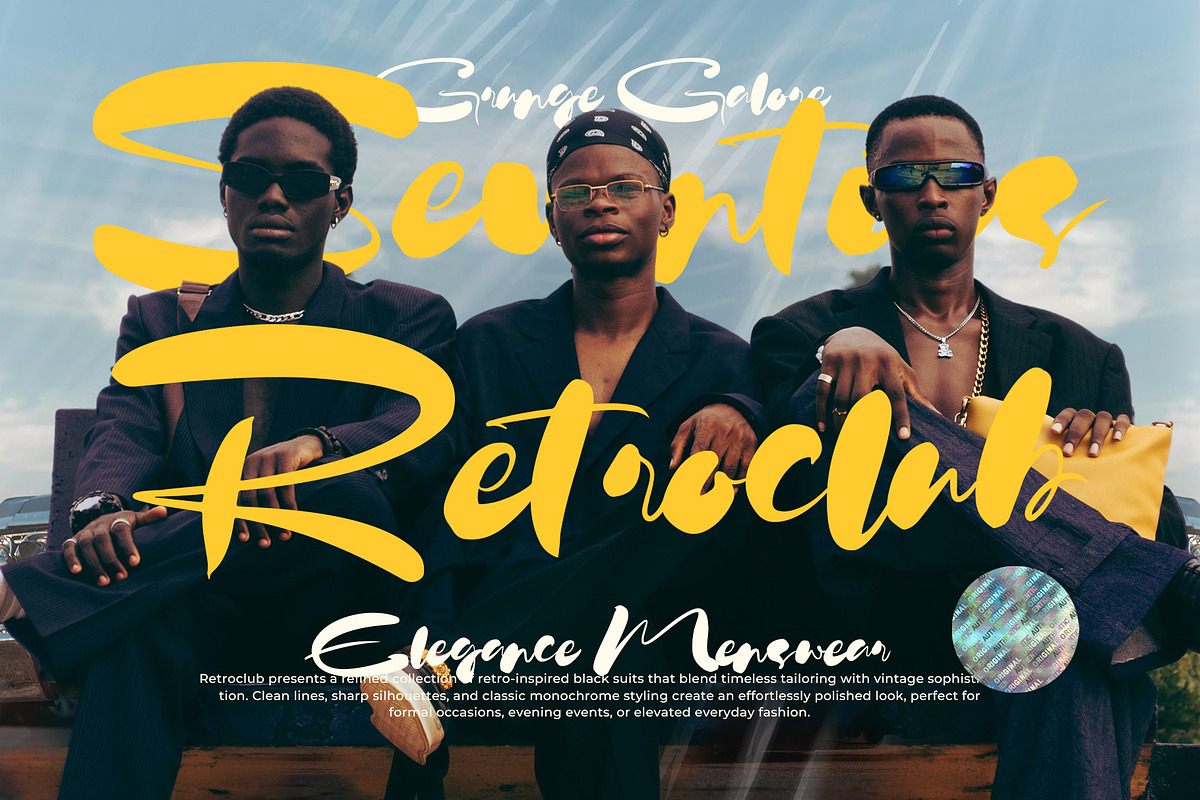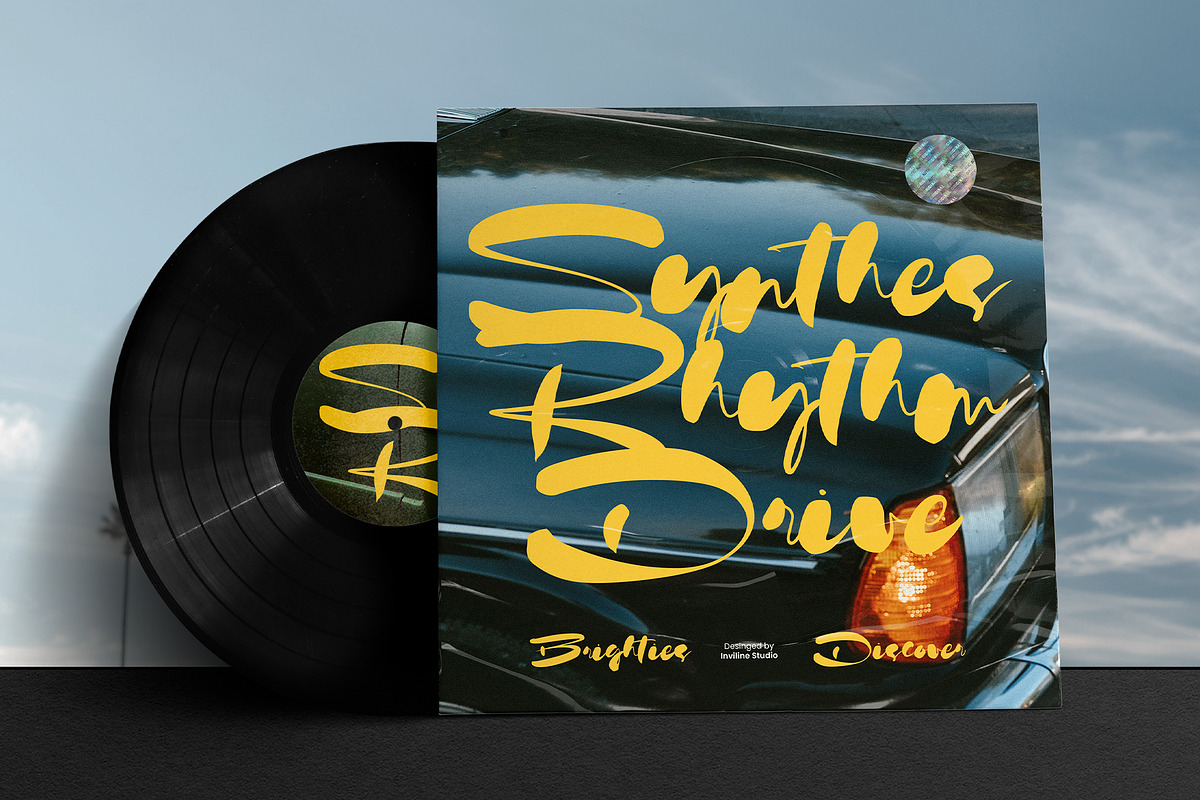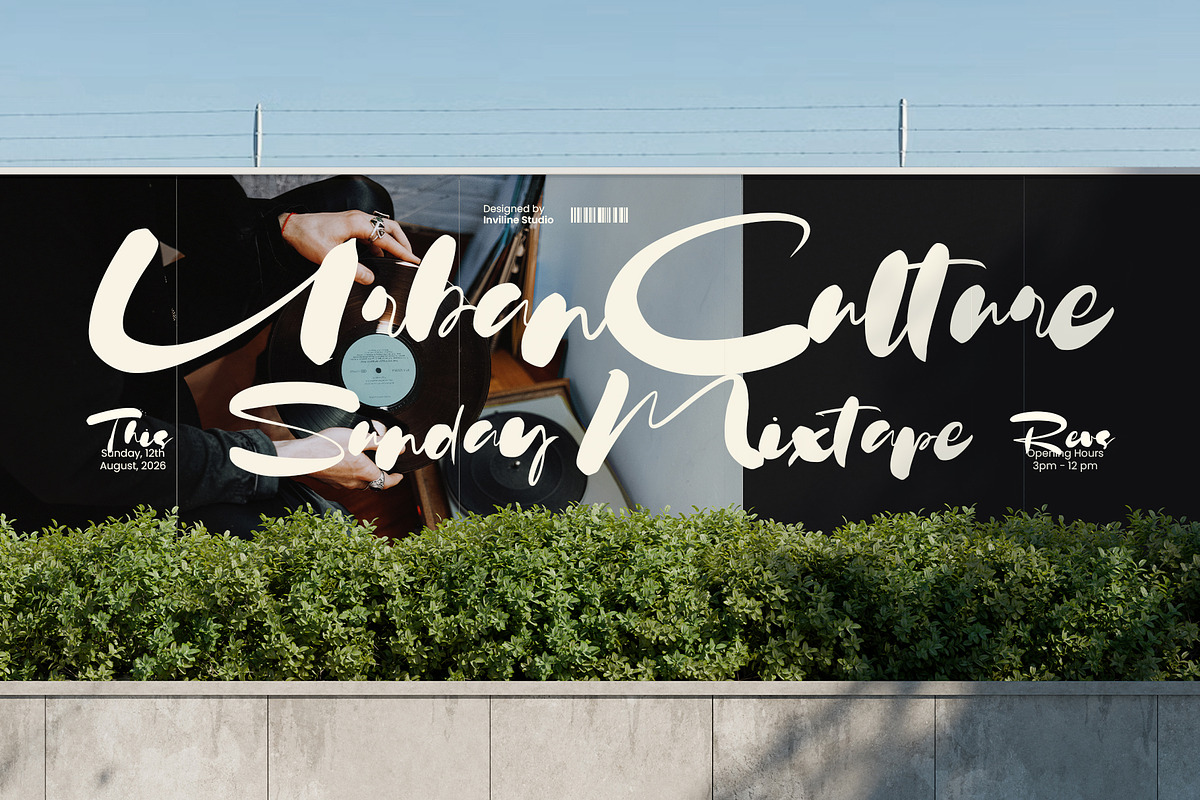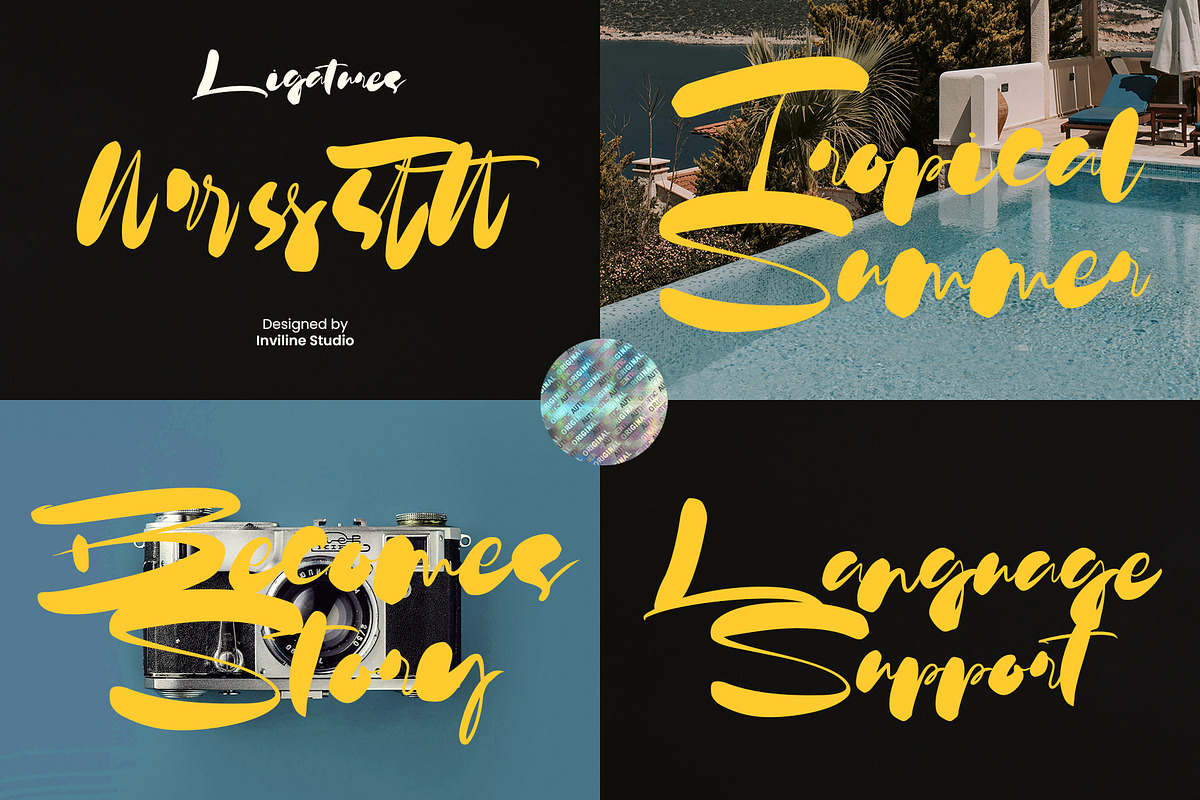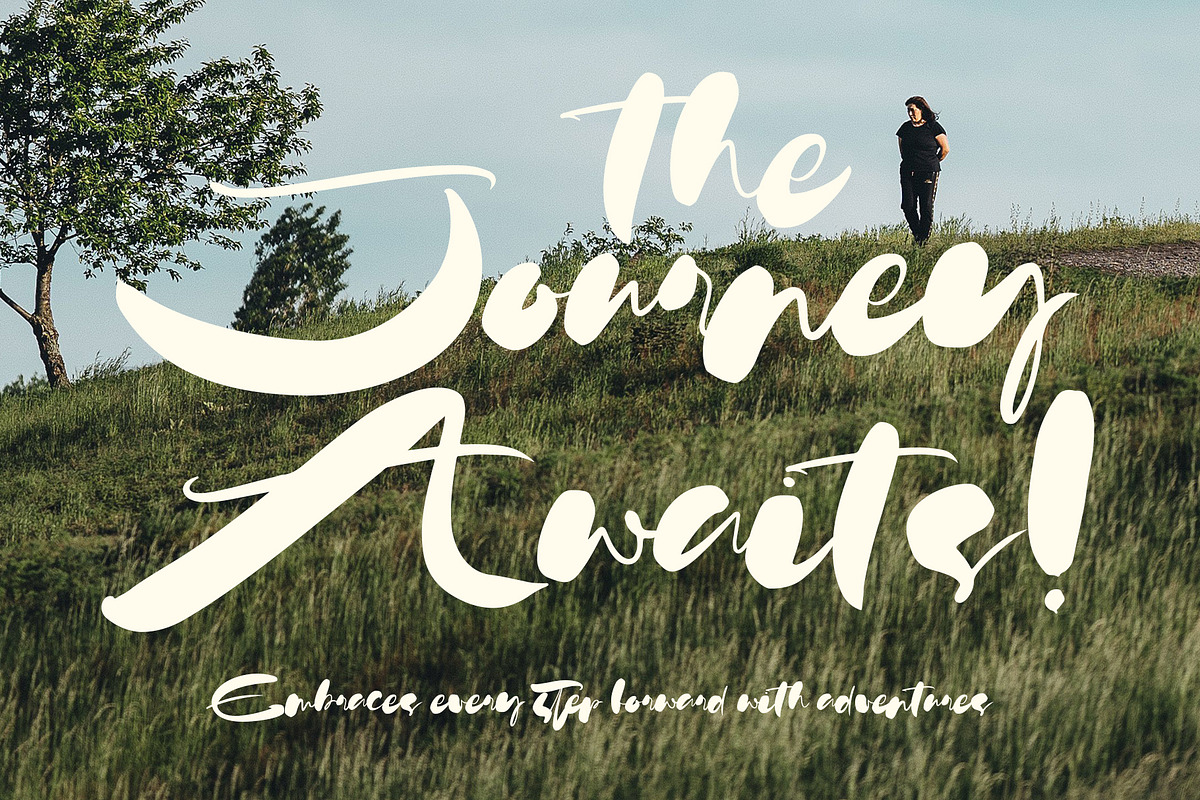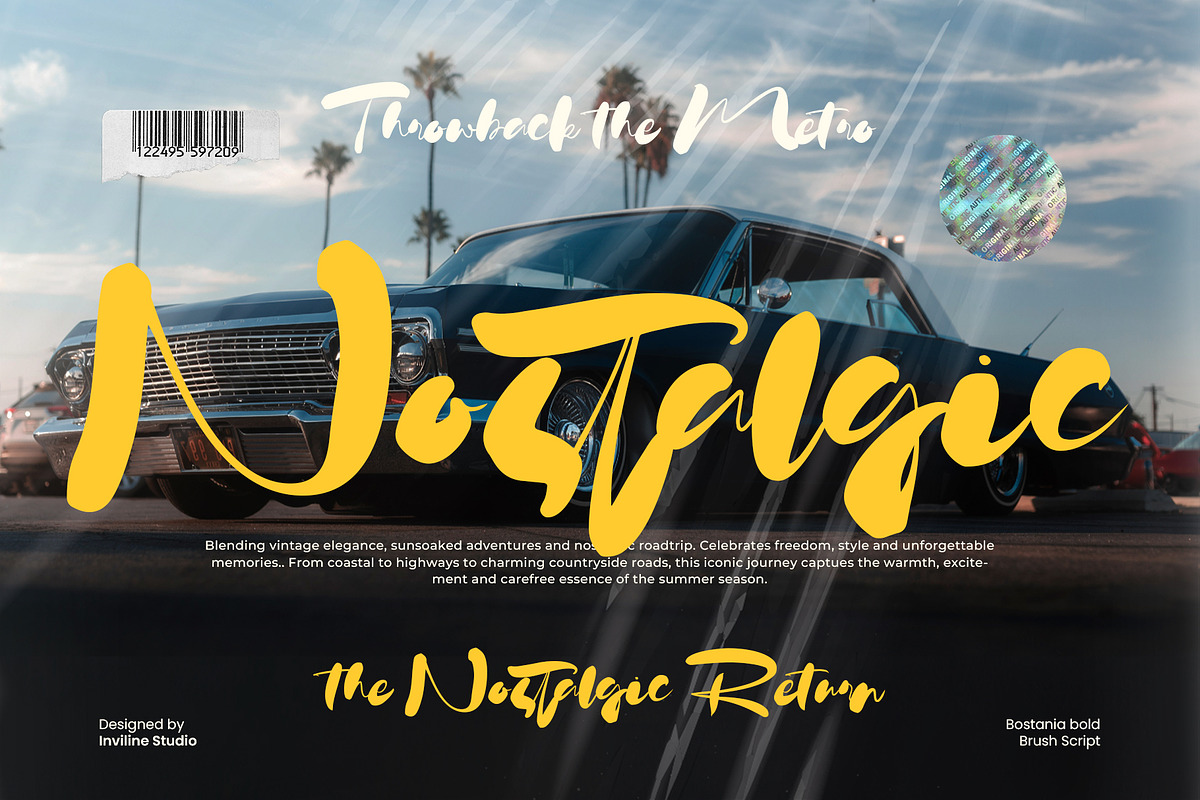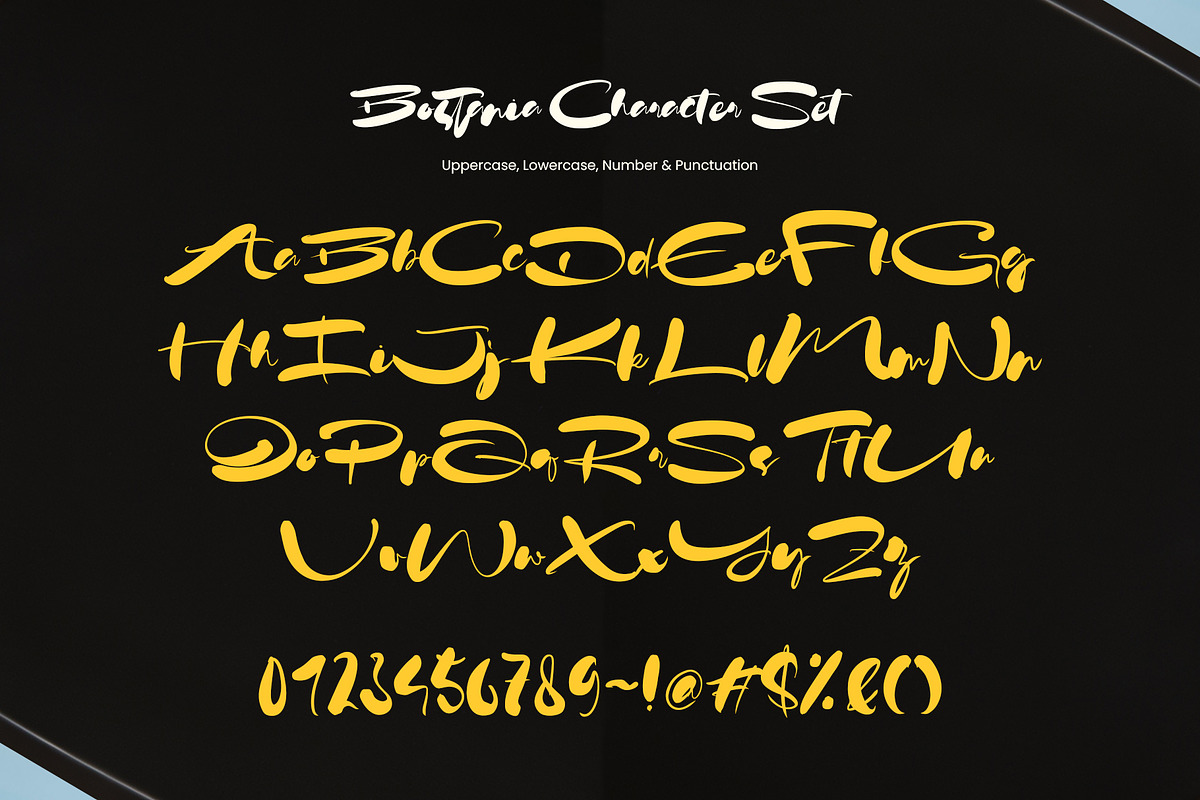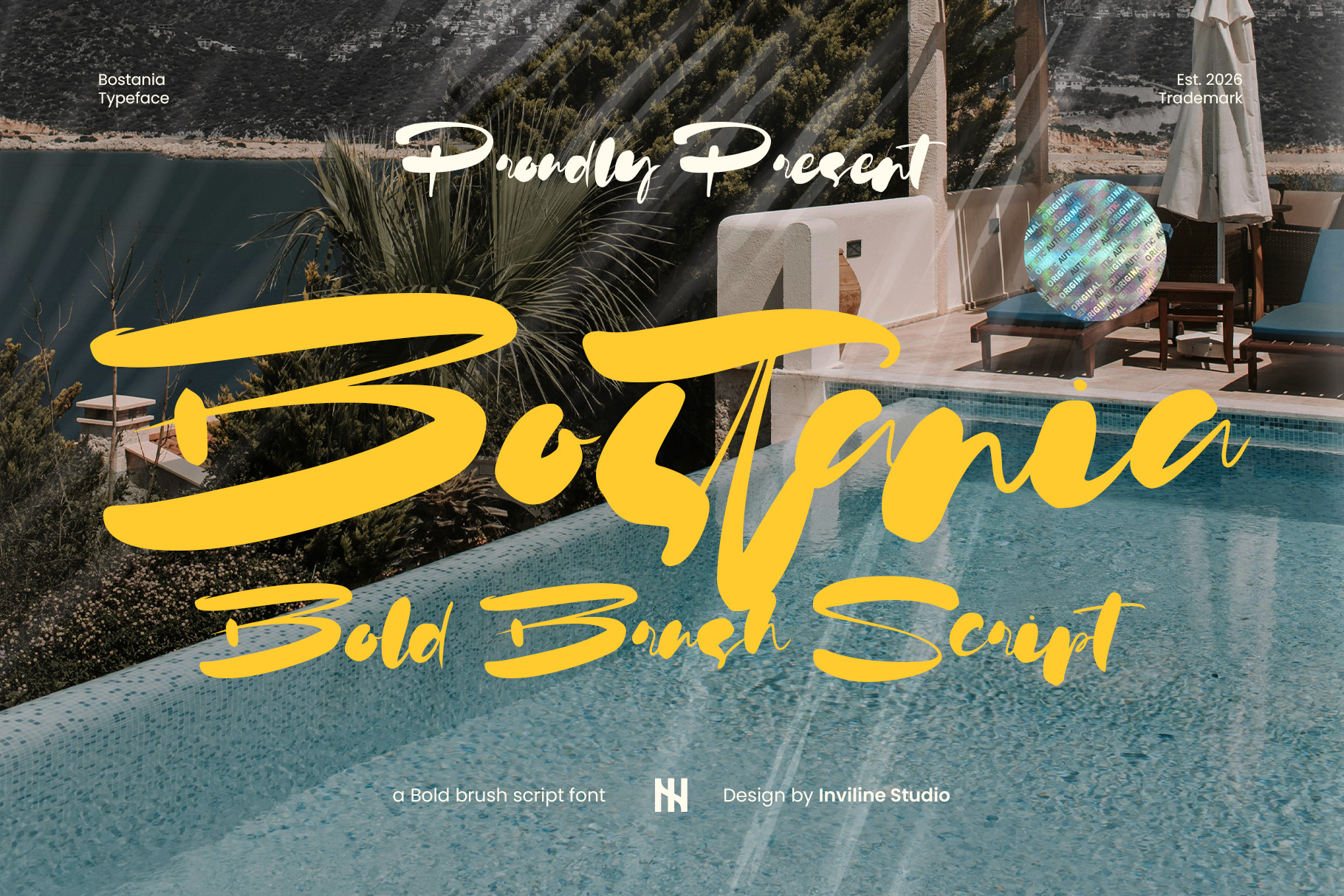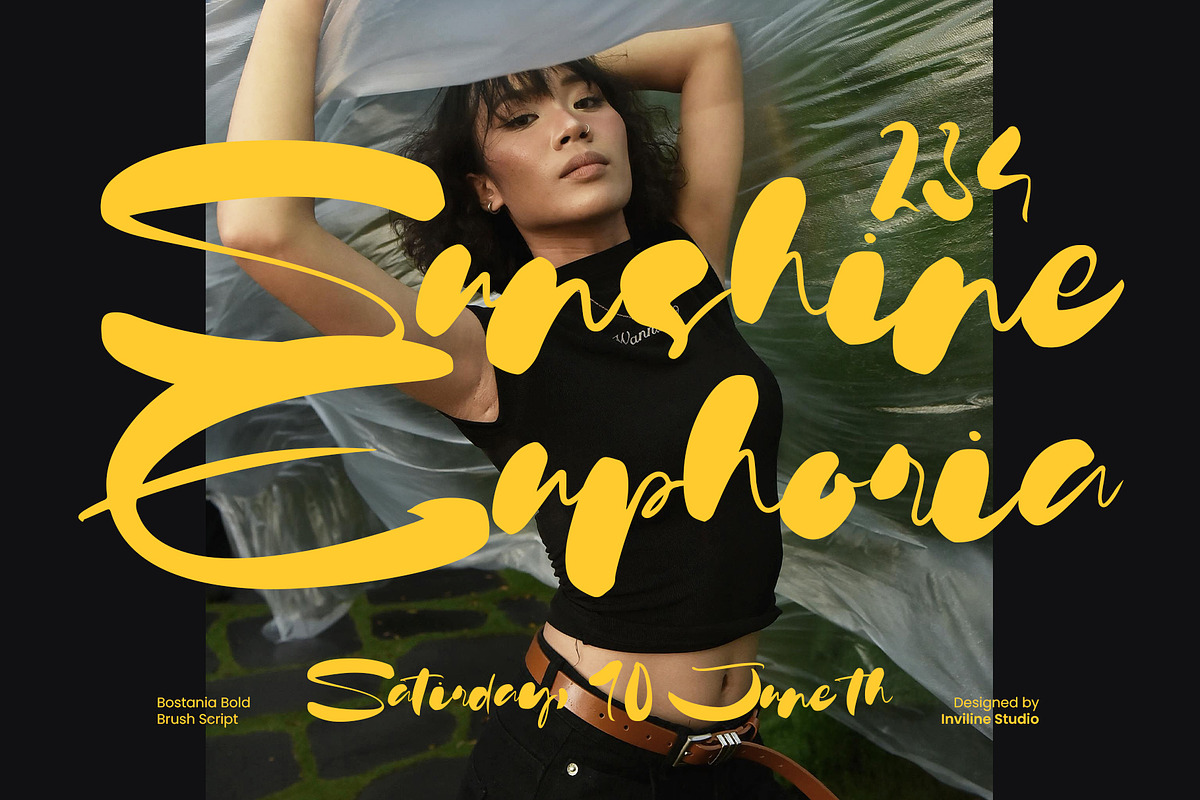
Bostania - Bold Brush Font
Bostania is a bold expressive brush font inspired by outdoor adventures, natural landscapes, spontaneous handwriting, and confident lifestyle branding.
Its thick strokes, fast movement, and organic brush details create a strong handmade personality. Bostania is designed for projects that need energetic typography with a natural, adventurous, and contemporary visual character.
Bostania combines powerful brush lettering with a flowing display structure. Its expressive uppercase characters create memorable focal points, while the connected lowercase forms bring rhythm and movement to names, headlines, and short statements.
The font works especially well with nature photography, outdoor campaigns, textured backgrounds, travel graphics, music artwork, and bold editorial compositions. Use Bostania as the primary display typeface, then pair it with a clean sans serif or condensed font for supporting information.
Bold expressive brush-script design
Thick and energetic handwritten strokes
Natural handmade irregularities
Fast and dynamic writing rhythm
Strong uppercase letterforms
Flowing lowercase characters
Strong readability at medium and large sizes
Suitable for print and digital applications
Ideal for logos, headlines, titles, and short phrases
Works beautifully with outdoor and nature photography
Suitable for textured, outlined, and layered treatments
Easy to pair with condensed or minimalist sans serif fonts
Ideal For / Use Cases
Outdoor lifestyle branding
Adventure campaigns
Travel posters
Nature-inspired branding
Logo and wordmark design
Camping graphics
Hiking and exploration projects
Sports branding
Automotive graphics
Music artwork
Album covers
Festival posters
Editorial headlines
Magazine covers
Product packaging
Beverage labels
Café and restaurant branding
YouTube thumbnails
Photography overlays
Inspirational quotes
Sticker designs
Merchandise graphics
Promotional banners
Contemporary visual identities
Use Bostania at medium or large sizes to preserve its expressive brush details. It works best for logos, headlines, posters, product names, quotes, and short promotional messages rather than long paragraphs.
Pair it with a clean sans serif font for dates, descriptions, captions, and supporting information. Allow additional spacing around extended brush strokes when creating multi-line compositions.